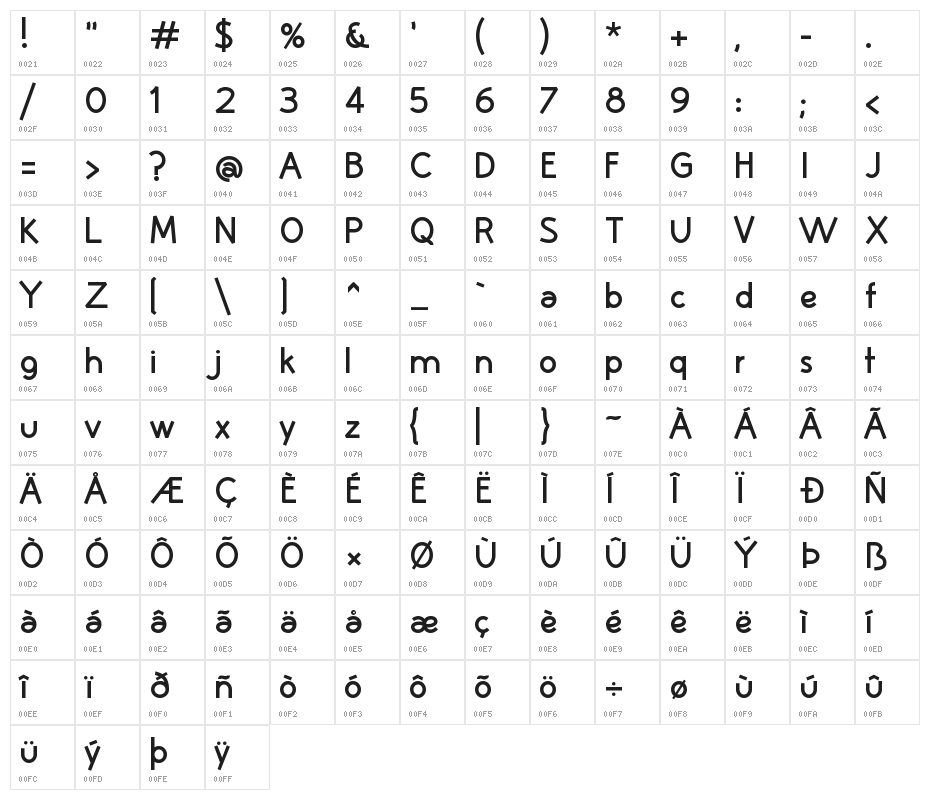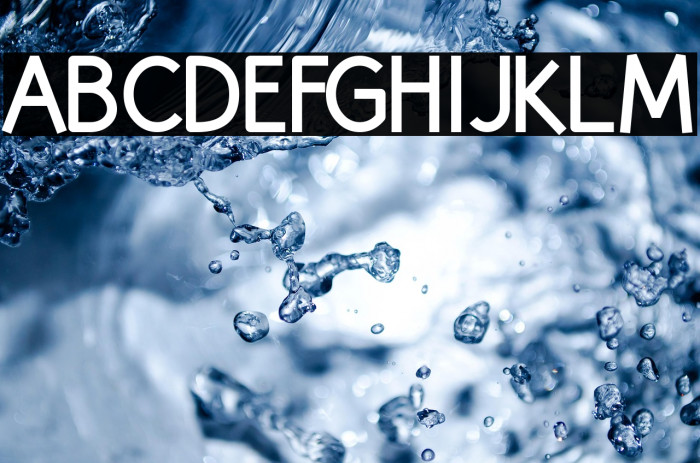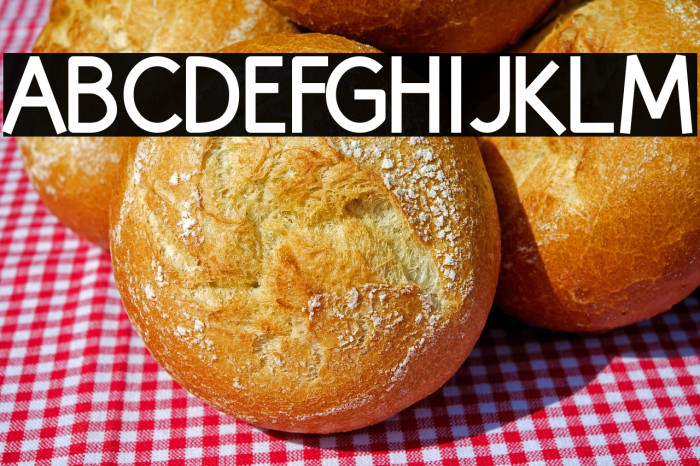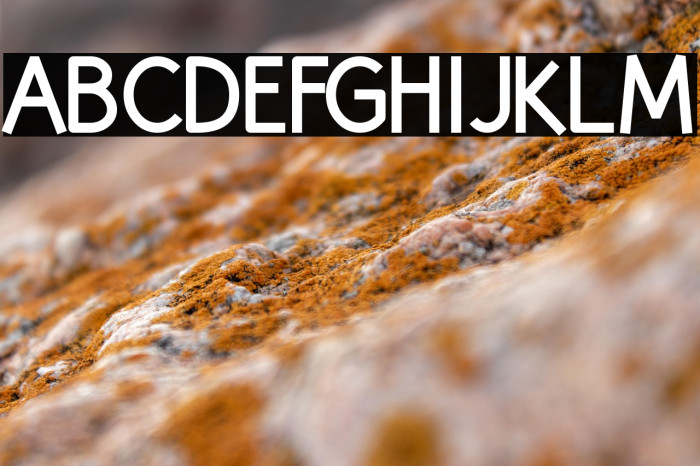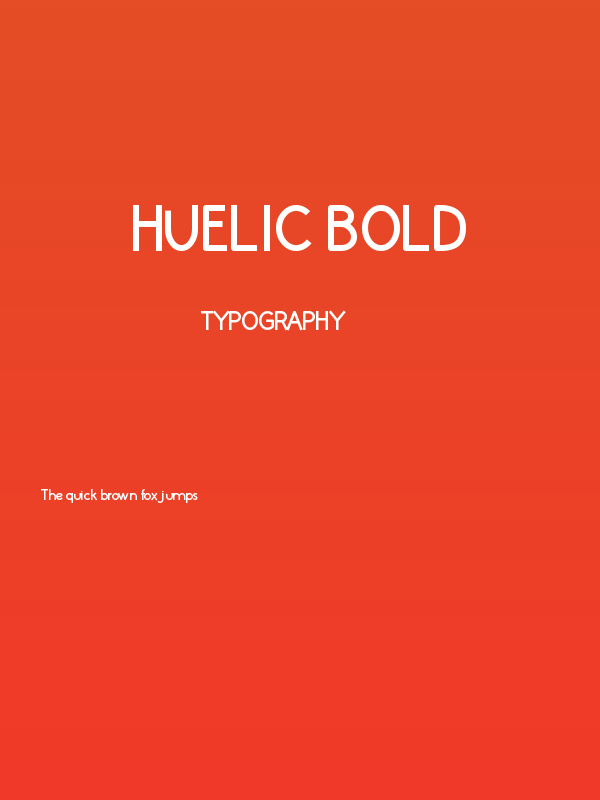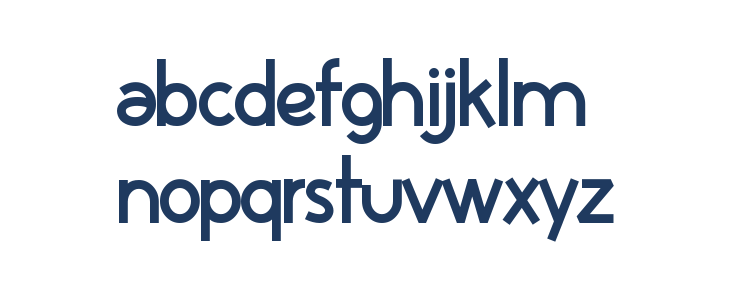
Huelic Bold Font
Huelic Bold Description
This font features a clean and modern sans-serif design with a bold weight. The characters are well-defined with a consistent stroke width, providing a strong and confident appearance. The uppercase letters are tall and commanding, while the lowercase letters maintain a harmonious balance with rounded edges that soften the overall look. The numerals are clear and easy to read, making them suitable for various applications. Special characters are included, maintaining the same bold and modern aesthetic. The font's simplicity and clarity make it versatile for both digital and print media.
| Proposed Projects | Ideal for branding, advertising, headlines, and digital content where a strong, modern presence is desired. |